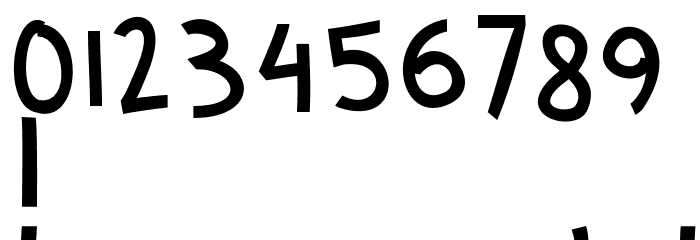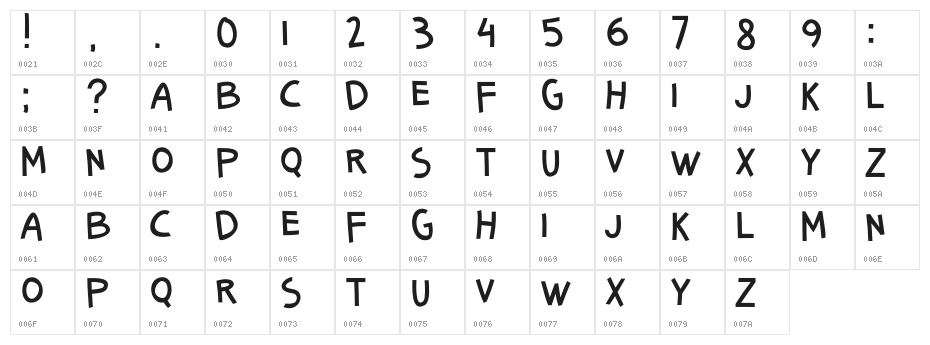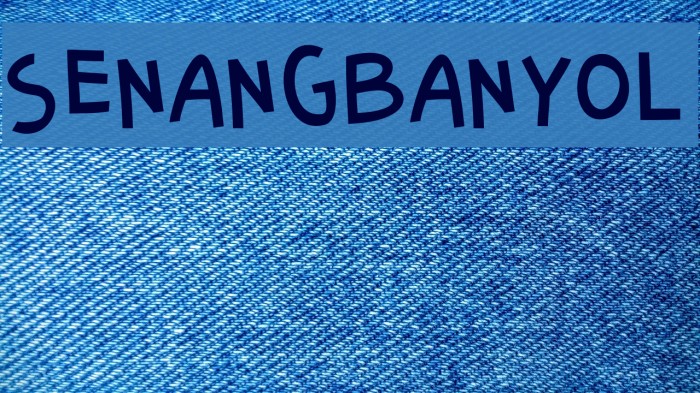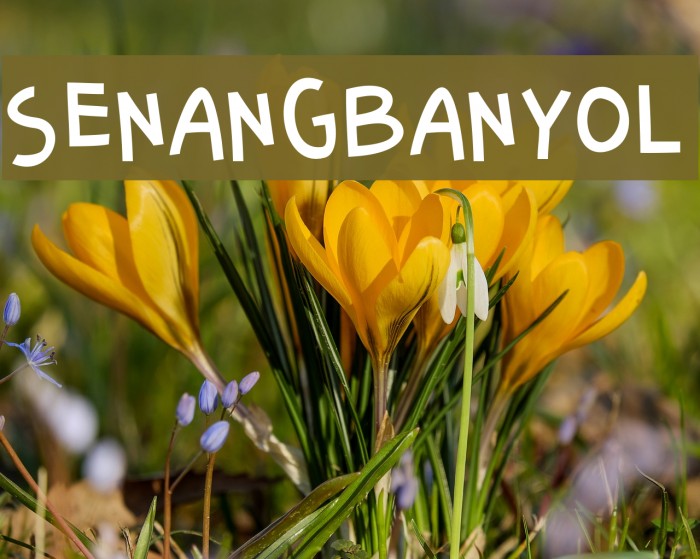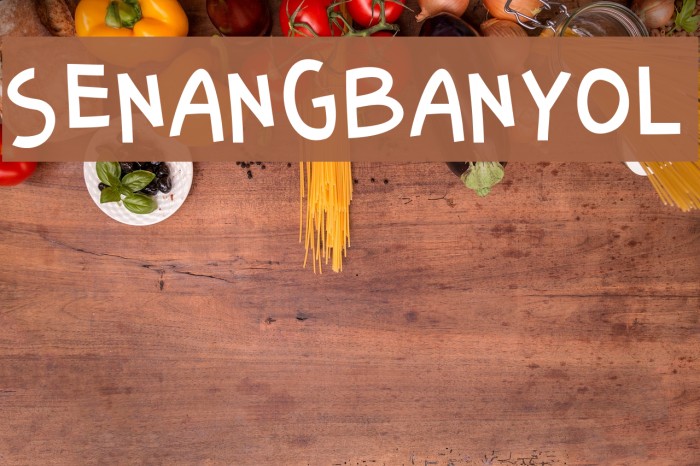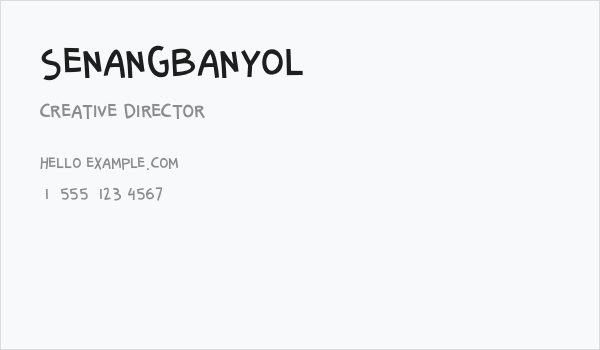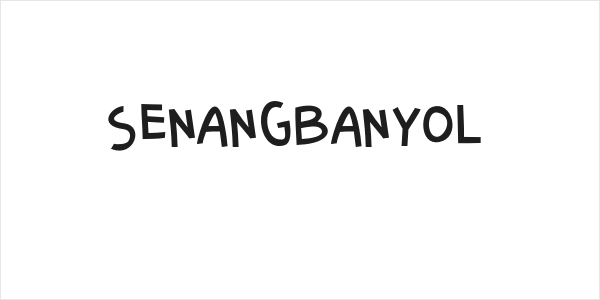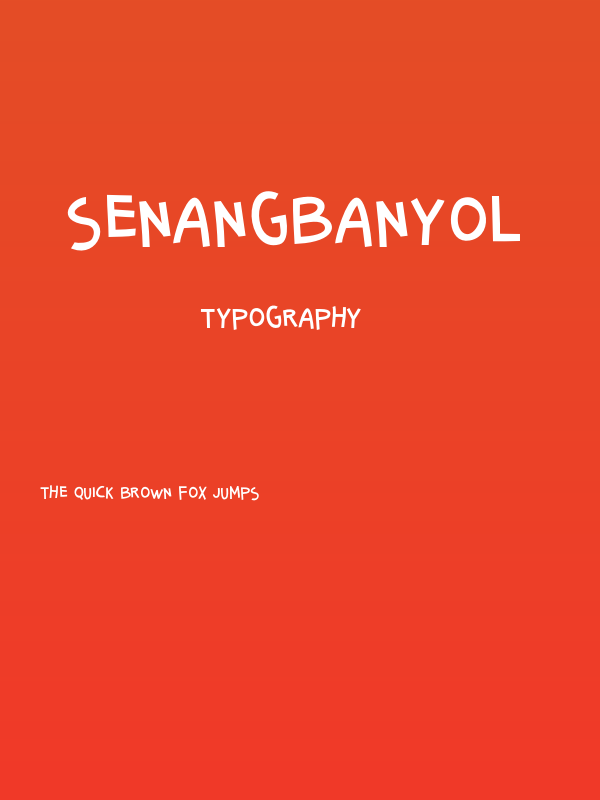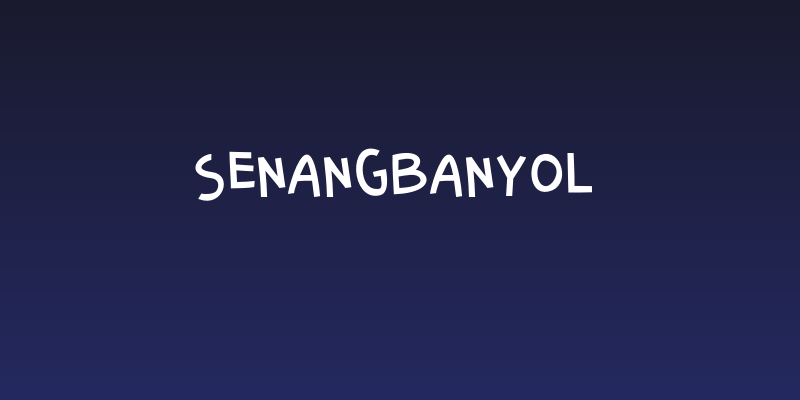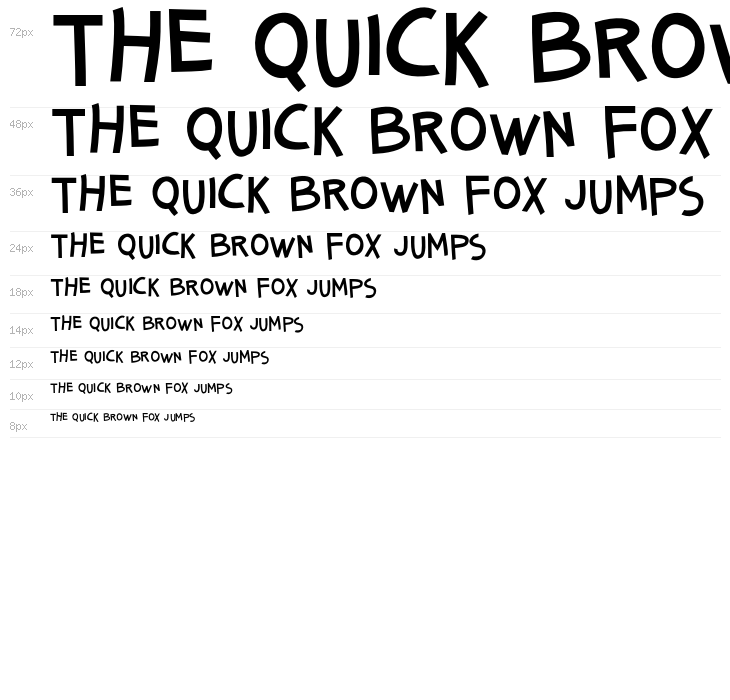
SenangBanyol Font
SenangBanyol Description
This playful and whimsical font features bold, rounded characters with a hand-drawn appearance. The letters are slightly irregular, adding a sense of fun and informality. The strokes are consistent in weight, giving the font a balanced look. The characters are well-spaced, ensuring readability while maintaining a casual style. This font is perfect for projects that require a touch of humor and creativity, such as children's books, comic strips, or playful branding materials.